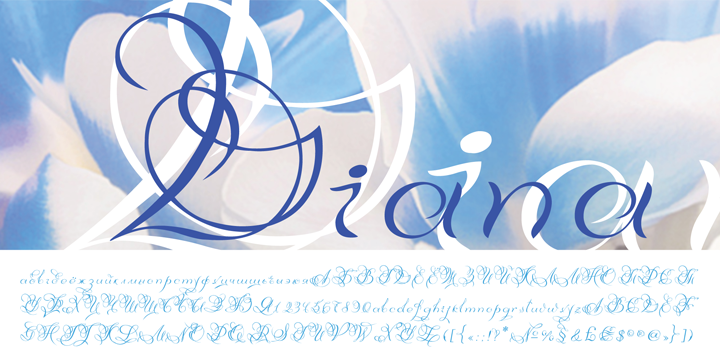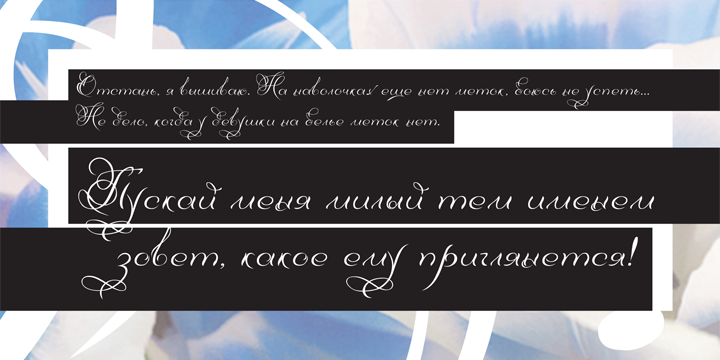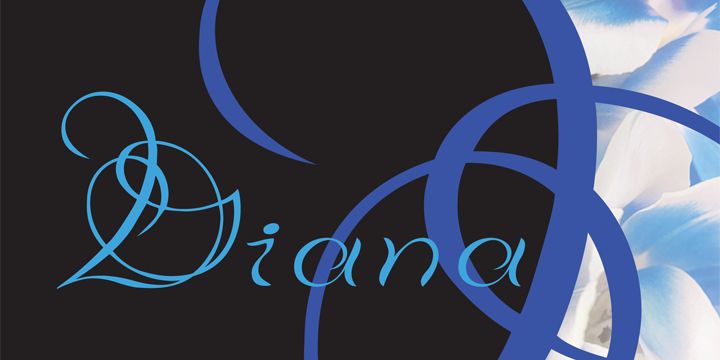
Designed by Sergey Volhonsky, Diana is a script font published by ParaType.
Designed for ParaType in 2002 by Sergey Volhonsky (Moldova). An original calligraphic script. For use in advertising and display typography.